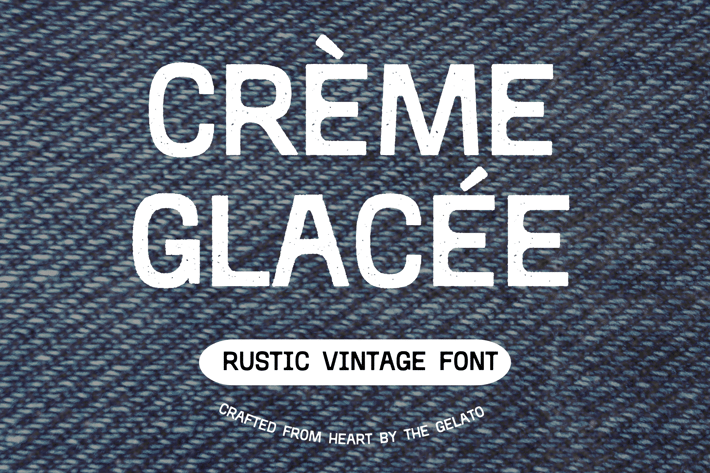
Crème Glacée Rustic Vintage Handcrafted Font
Crème Glacée is a Rustic Vintage Sans Serif Font that can be used as a Stamp Texture Font, Farmhouse Retro Font, Handdrawn Ink Bleed Font, Vintage Crafted Sans Serif, Logo Type Font, Handcraft Vintage Stamp, Stamp Label Font
Perfectly suitable for numerous use such as quotations, banners, logos, product packaging, titles, headers, Business cards, menu lists, and invitation cards!